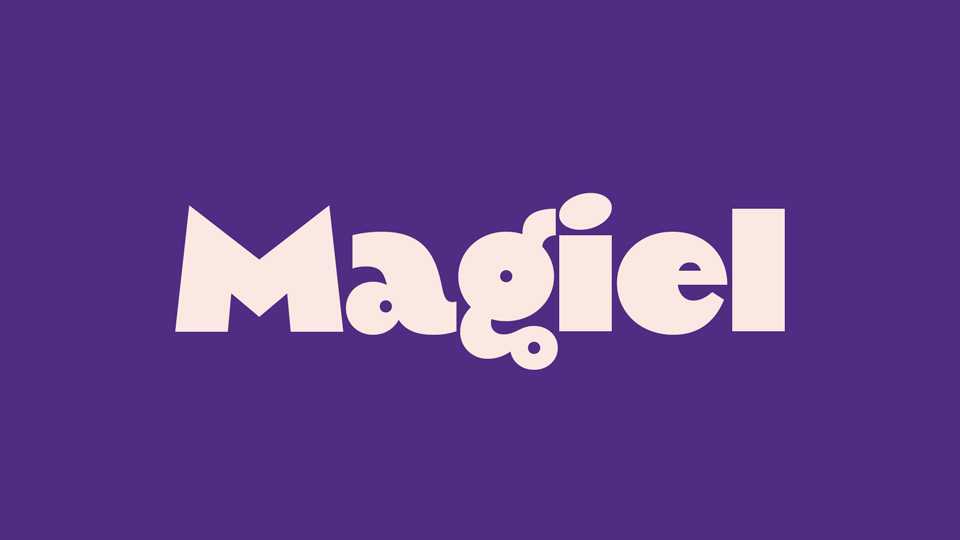
Download Magiel font, a geometrical display typeface, inspired by amateur signage lettering. Magiel letters contain some characteristic “defects” and “mistakes” that could be found in signs, tablets and posters from the 1945–1989 period.
Designer: Mateusz Machalski